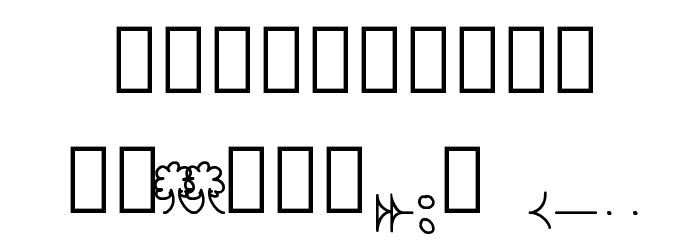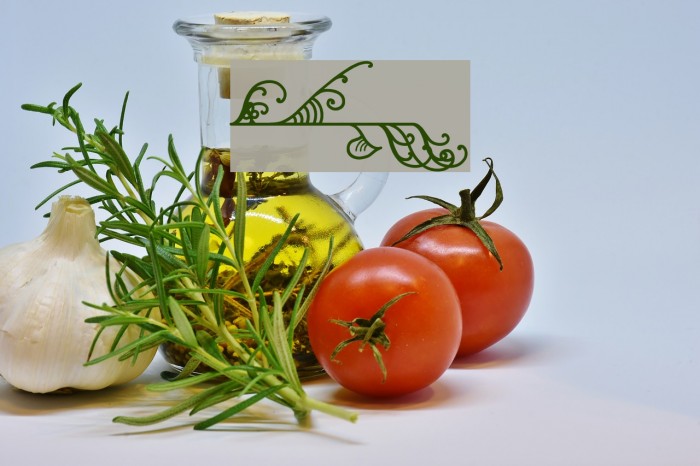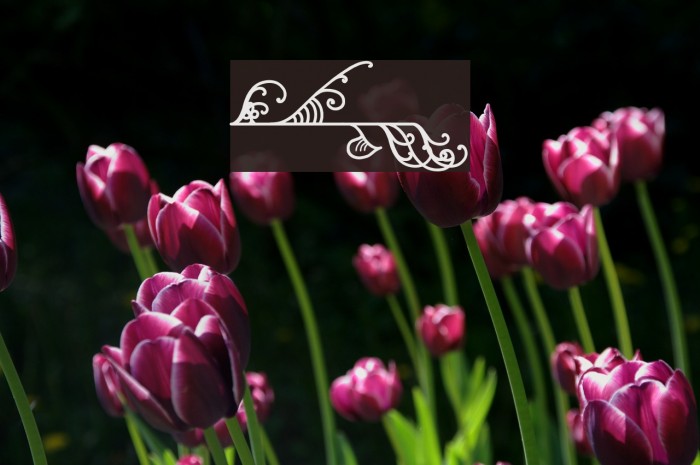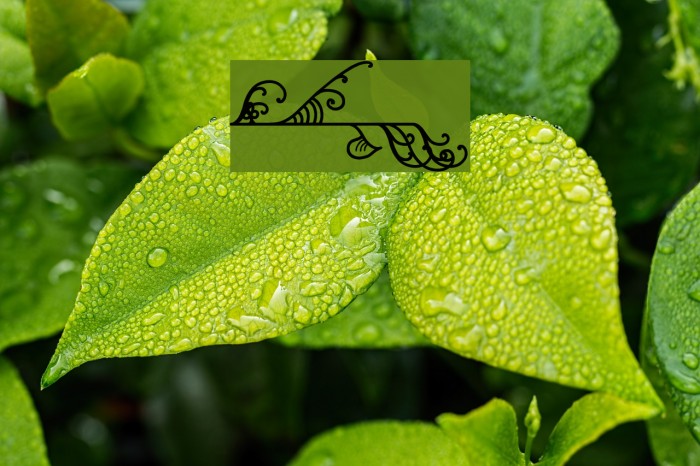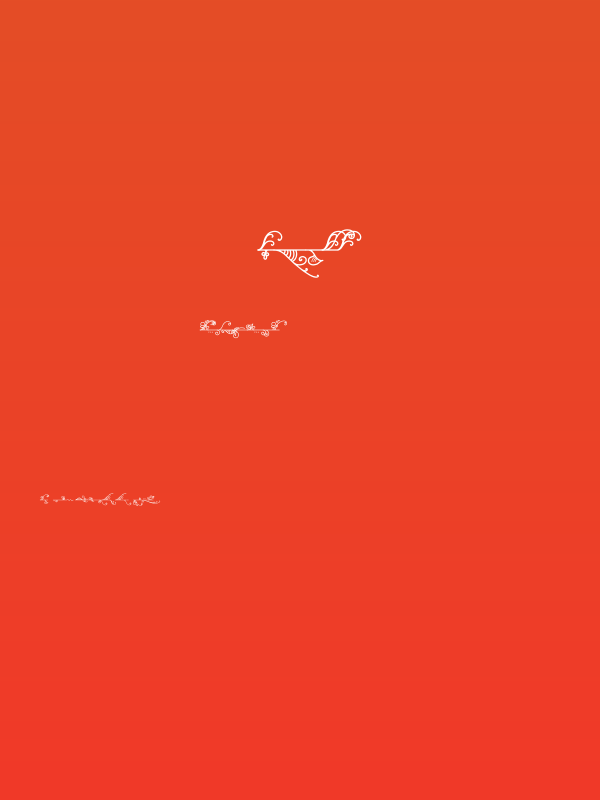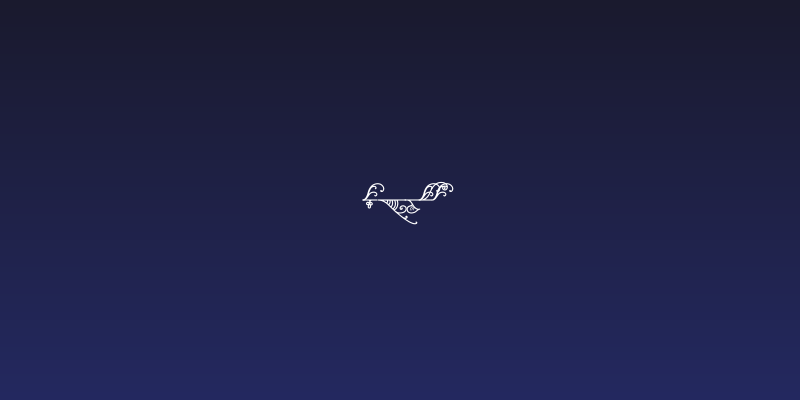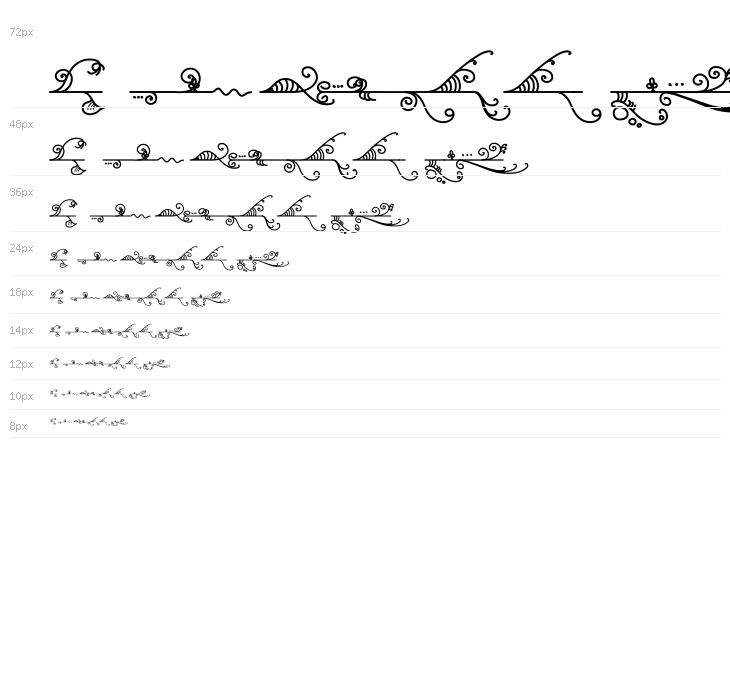
Nuvenon Font
Nuvenon Description
This design is not a traditional font but rather a collection of ornate, decorative elements. The intricate swirls and flourishes suggest a highly decorative style, reminiscent of vintage or classical embellishments. These elements are more suited for use as decorative borders or dividers rather than as a functional typeface. The design features a series of elaborate curls and loops, with a consistent use of thin lines and delicate detailing. The overall appearance is elegant and sophisticated, making it ideal for adding a touch of refinement to design projects.
| Use Case | Decorative elements, borders, embellishments. |
| Proposed Projects | Ideal for use in decorative borders, invitations, greeting cards, or any project requiring elegant embellishments. |